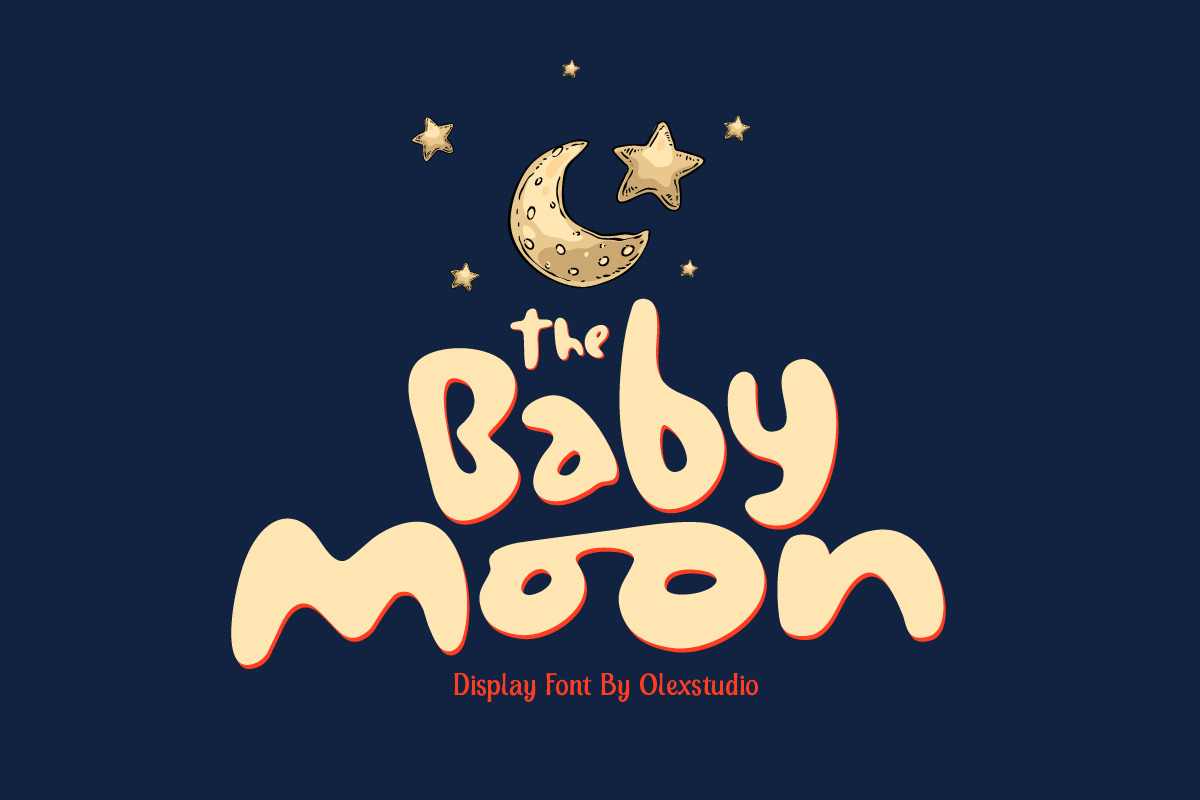
THE BABY MOON - Display Font
THE BABY MOON - Display Font will look gorgeous on all your designs, invitation, poster design, book design, branding materials, logo's, t-shirt and all project design other and with 3 style character font you can make a more beautiful design.
THE BABY MOON - Display Font contains standard characters, Lowercase, Uppercase, numbers, punctuation, ligatures and international glyphs. You will receive OTF, TTF files & WEBFONT.